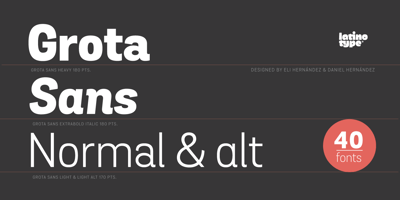
Grota Sans Font Family was designed by Daniel Hernández, Eli Hernández and published by Latinotype. Grota Sans contains 40 styles and family package options. Grota is back in its new Sans and Rounded versions. The complete family consists of 40 fonts, 10 different weights, cursives and an alt version. Grota Sans Rounded, designed by Eli Hernández and Daniel Hernández, is a grotesque font with Latin spirit. This type accompanies Grota Sans and Grota Unicase. It’s ideal for logos, brands, books, headlines, etc.